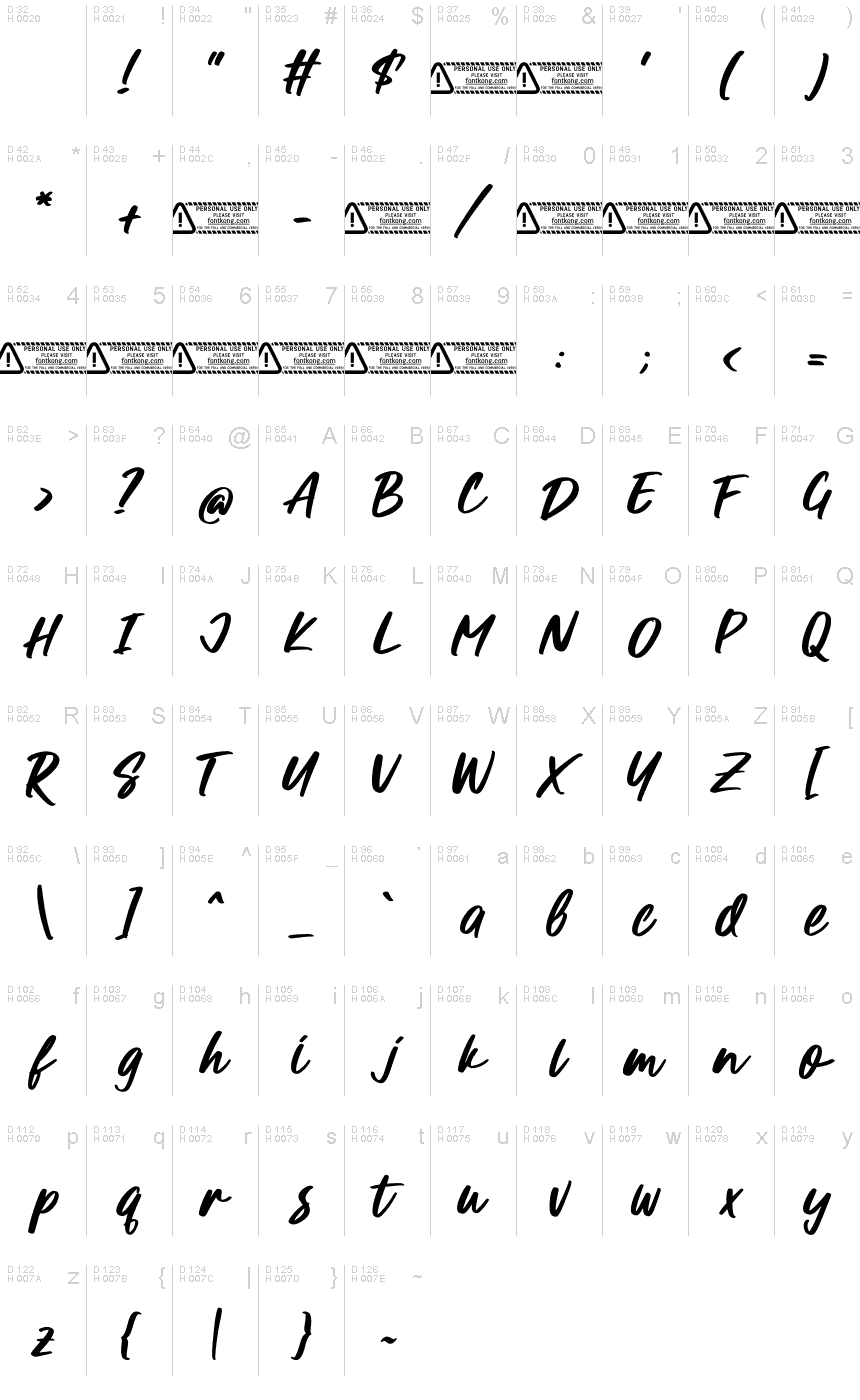
Shortime
Shortime, a bold and captivating handwritten font by Kong Font, adds a touch of creativity and personality to any project. With its unique marker style, this font is perfect for crafting eye-catching logos, stylish branding materials, and playful social media posts. Whether you're designing posters for music events or creating fun merchandise for children's brands, Shortime brings an edgy charm that demands attention. Stand out from the crowd with this font that effortlessly combines elegance with a touch of urban flair. Let your imagination run wild and watch your designs come to life with Shortime!